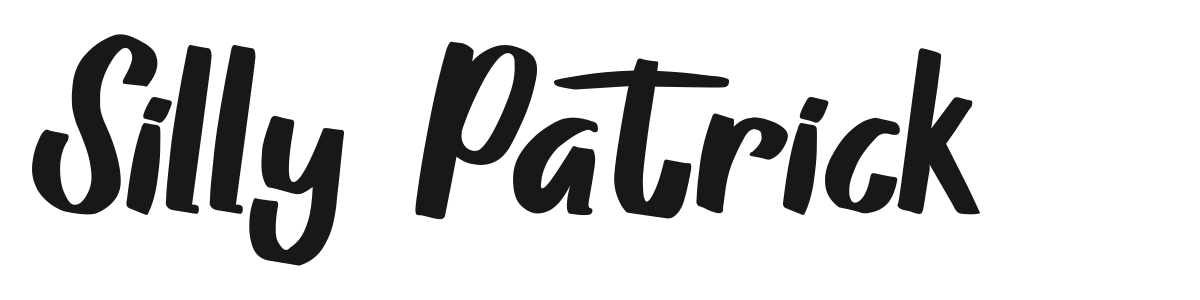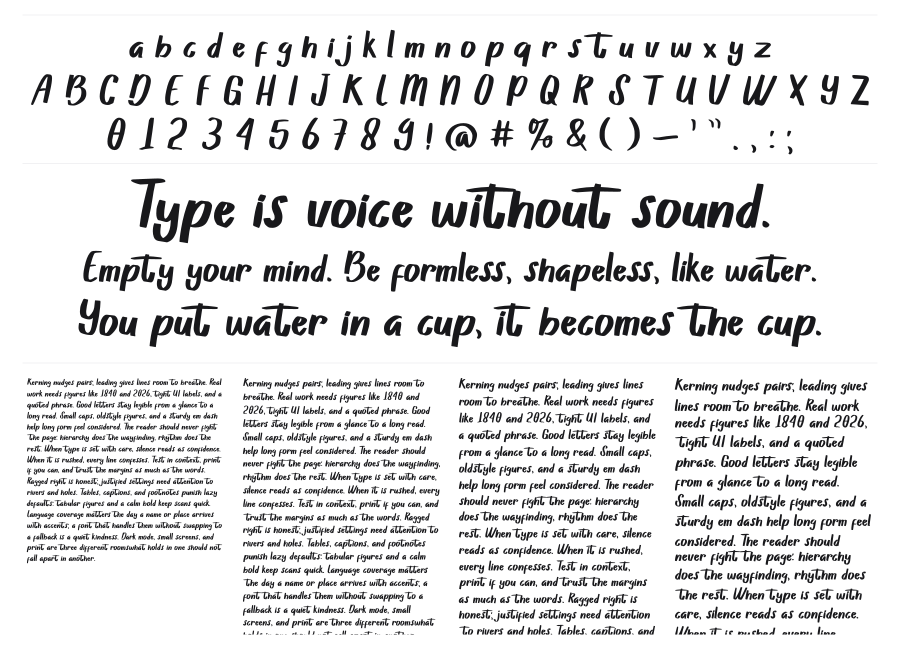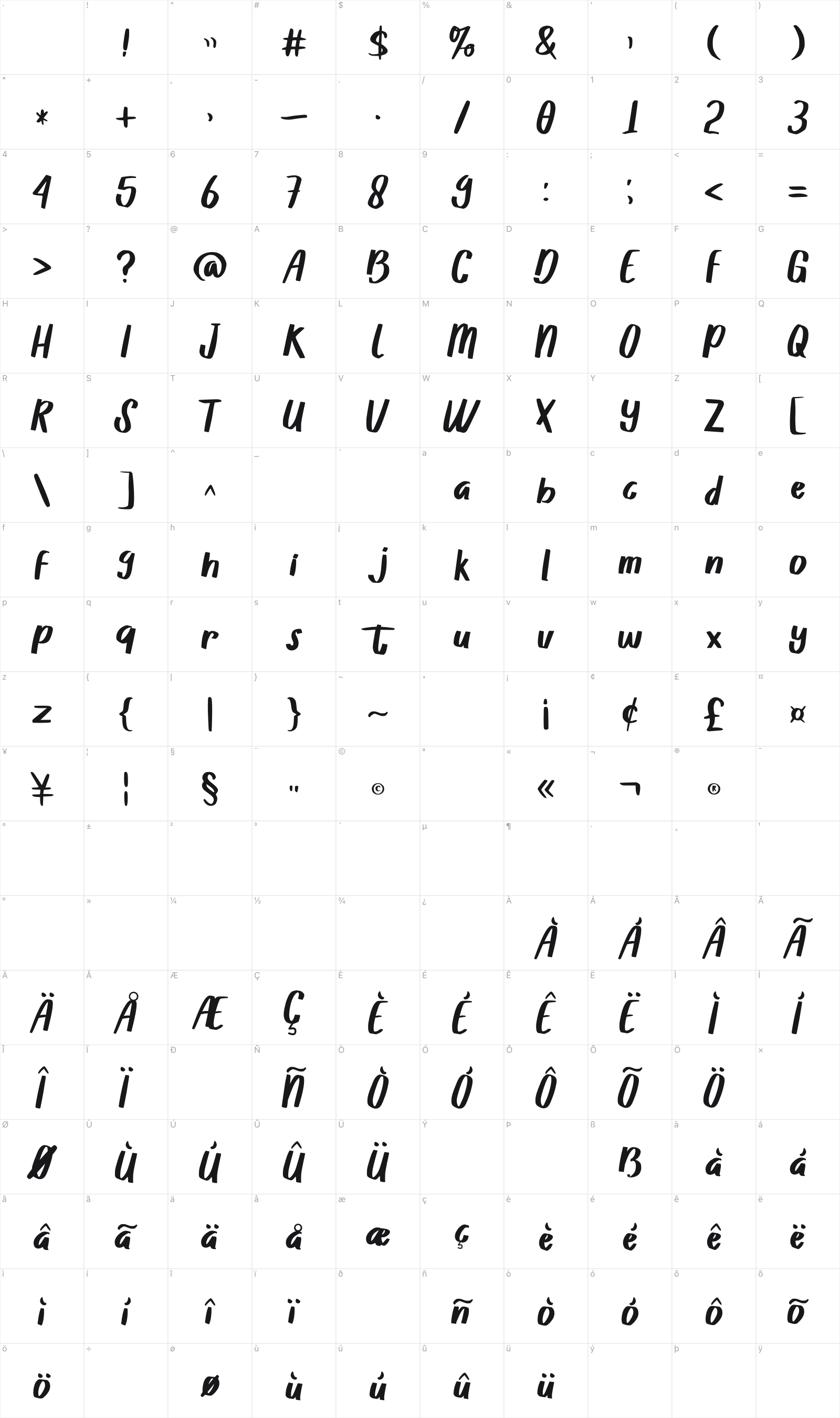
Silly Patrick
Silly Patrick is a bold casual script with a thick, marker-like stroke and an exaggerated forward lean. The letters bounce along an irregular baseline with loose connections and rounded terminals, giving it an unforced, hand-lettered charm. Good for headlines, packaging, or any project that needs an easygoing, energetic personality.